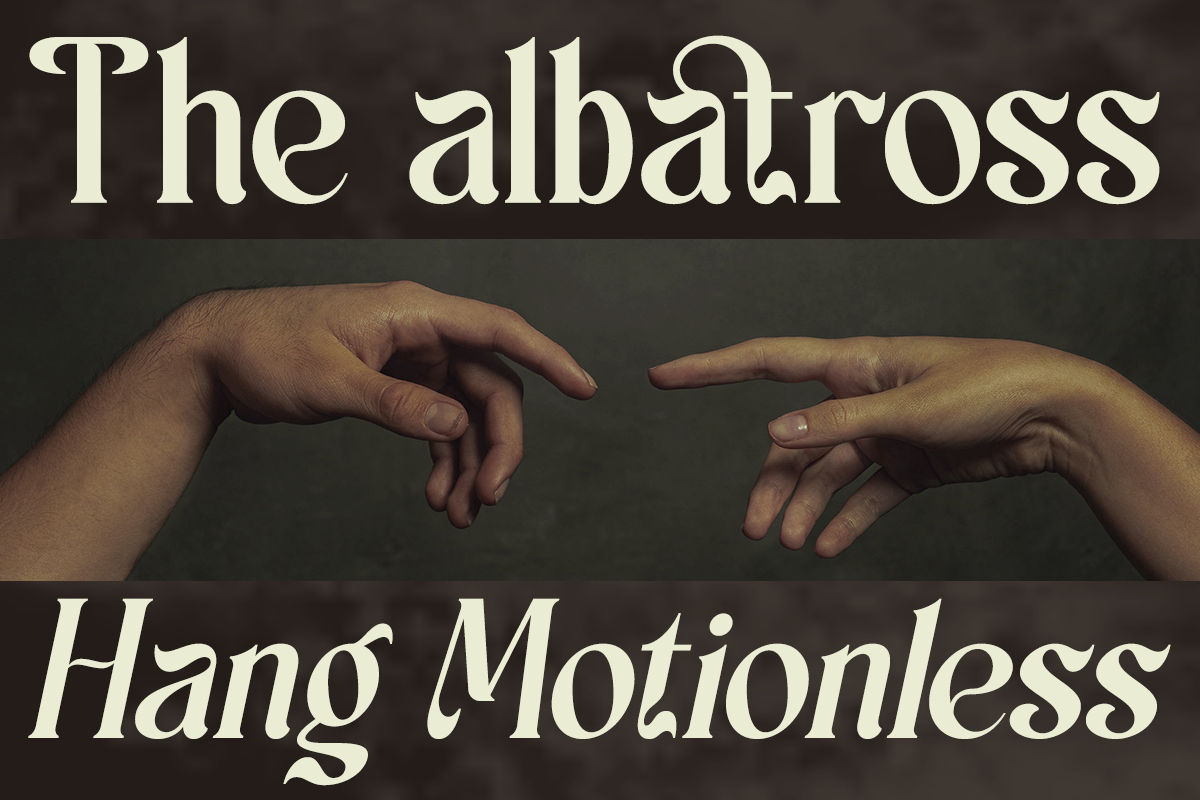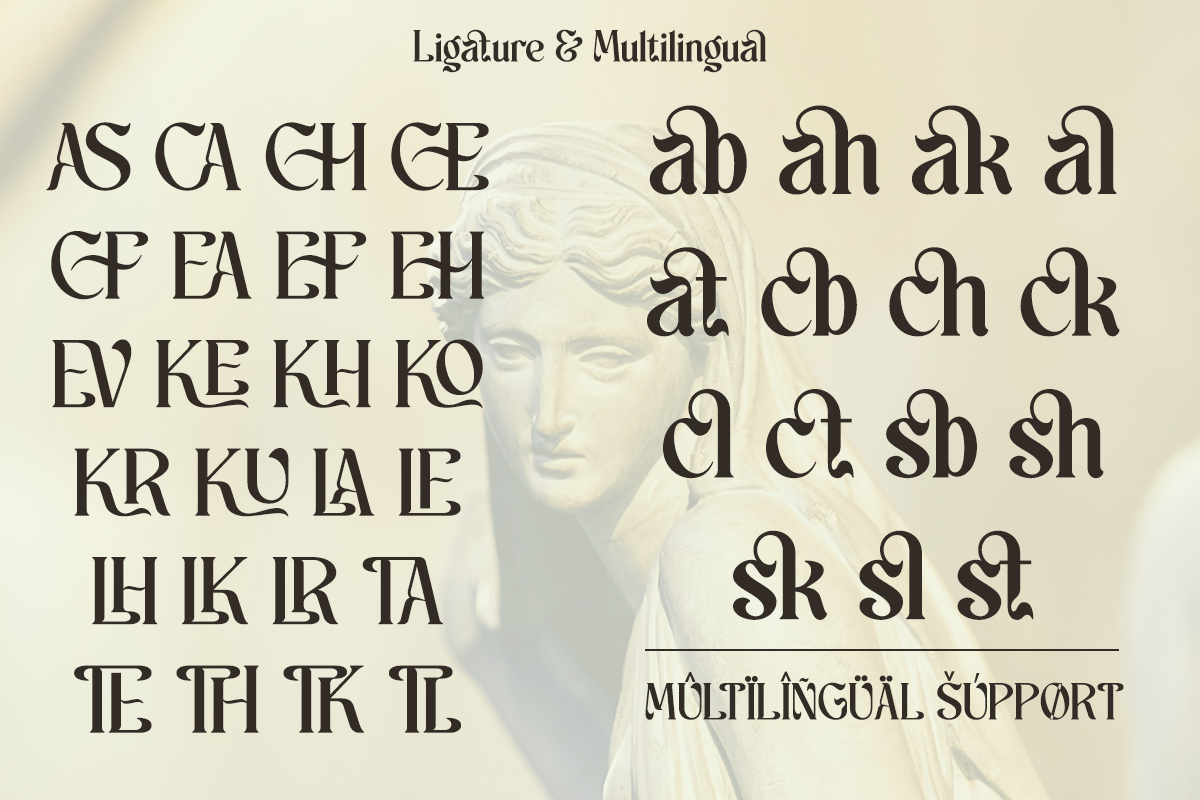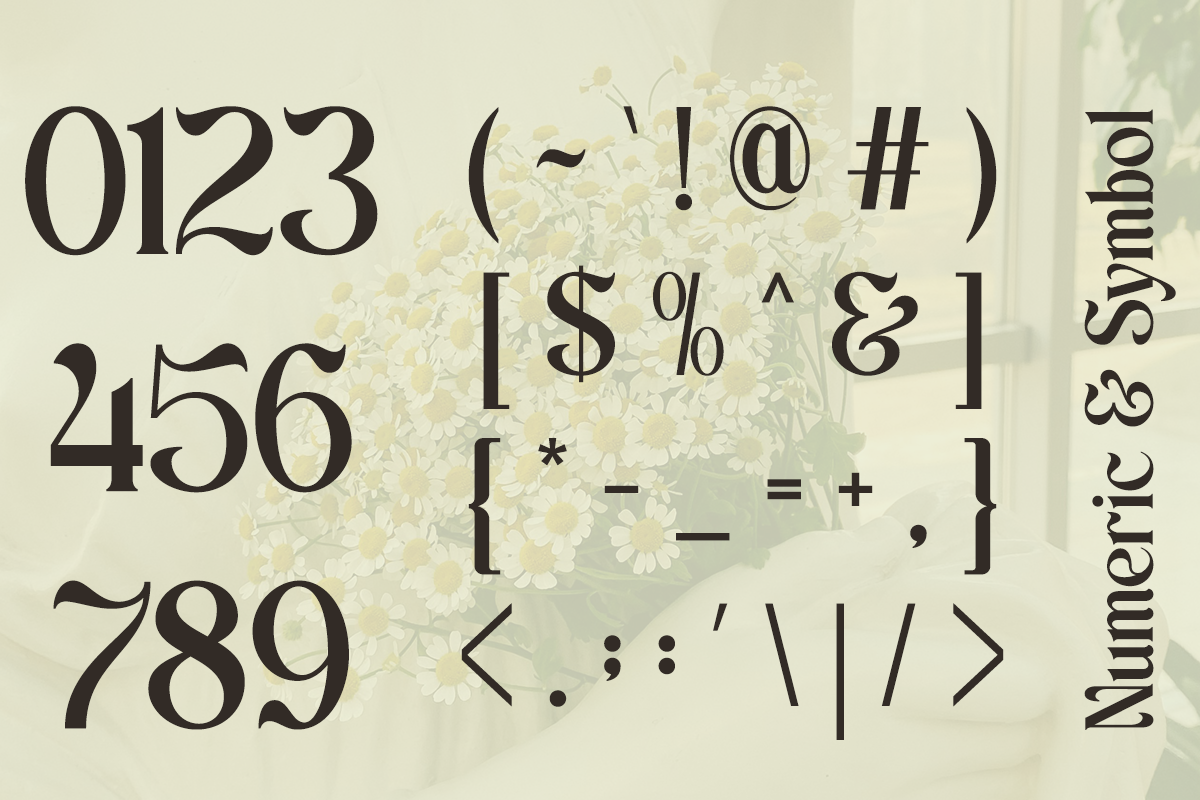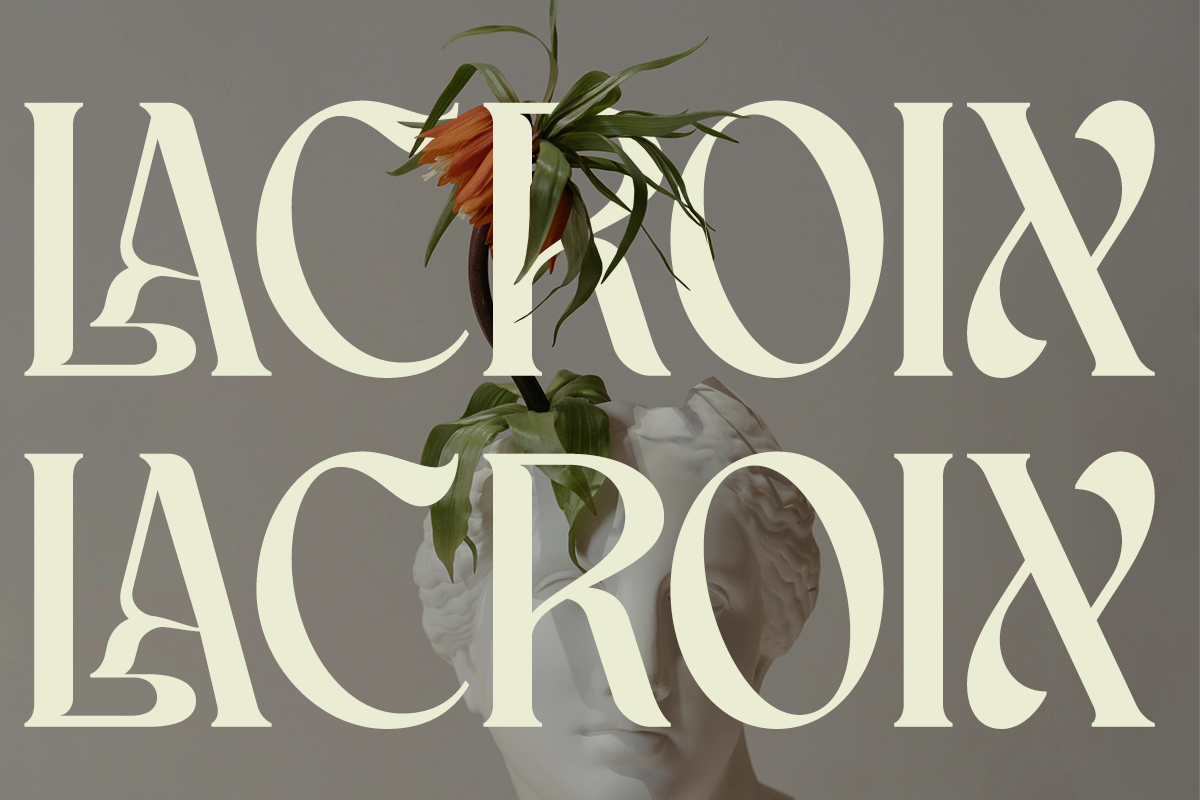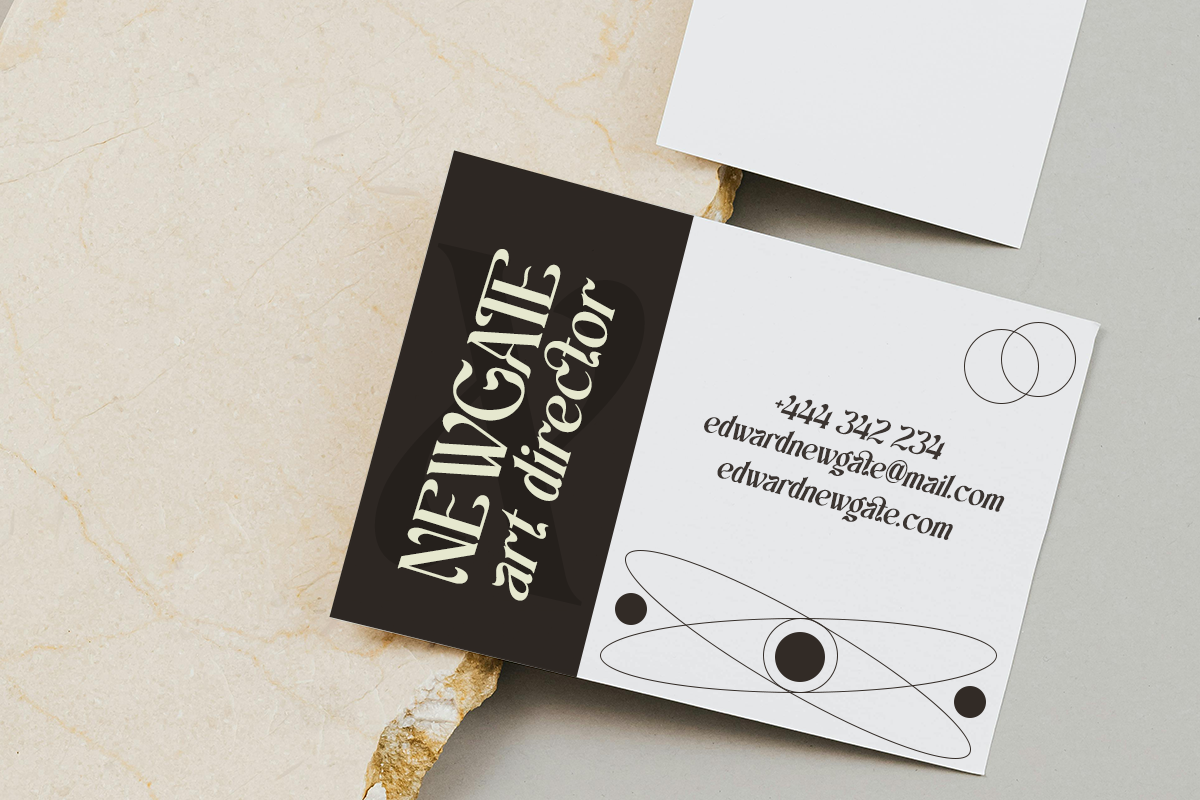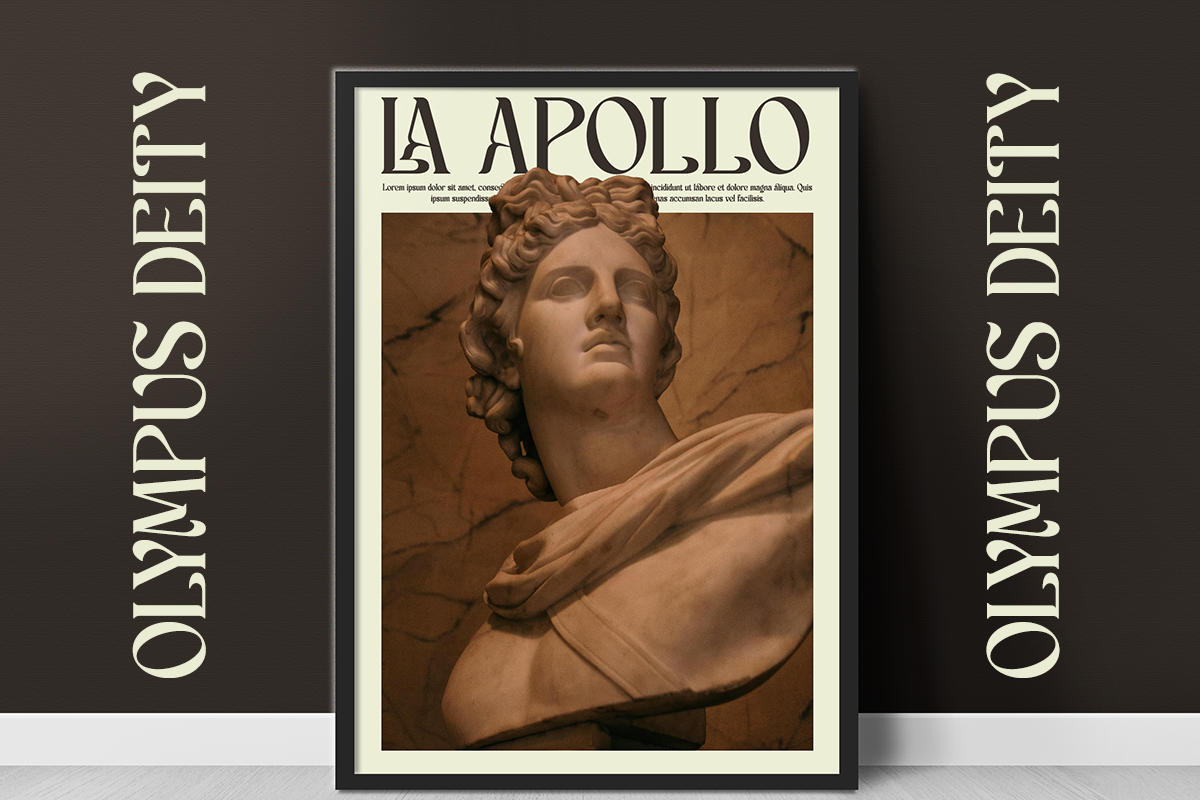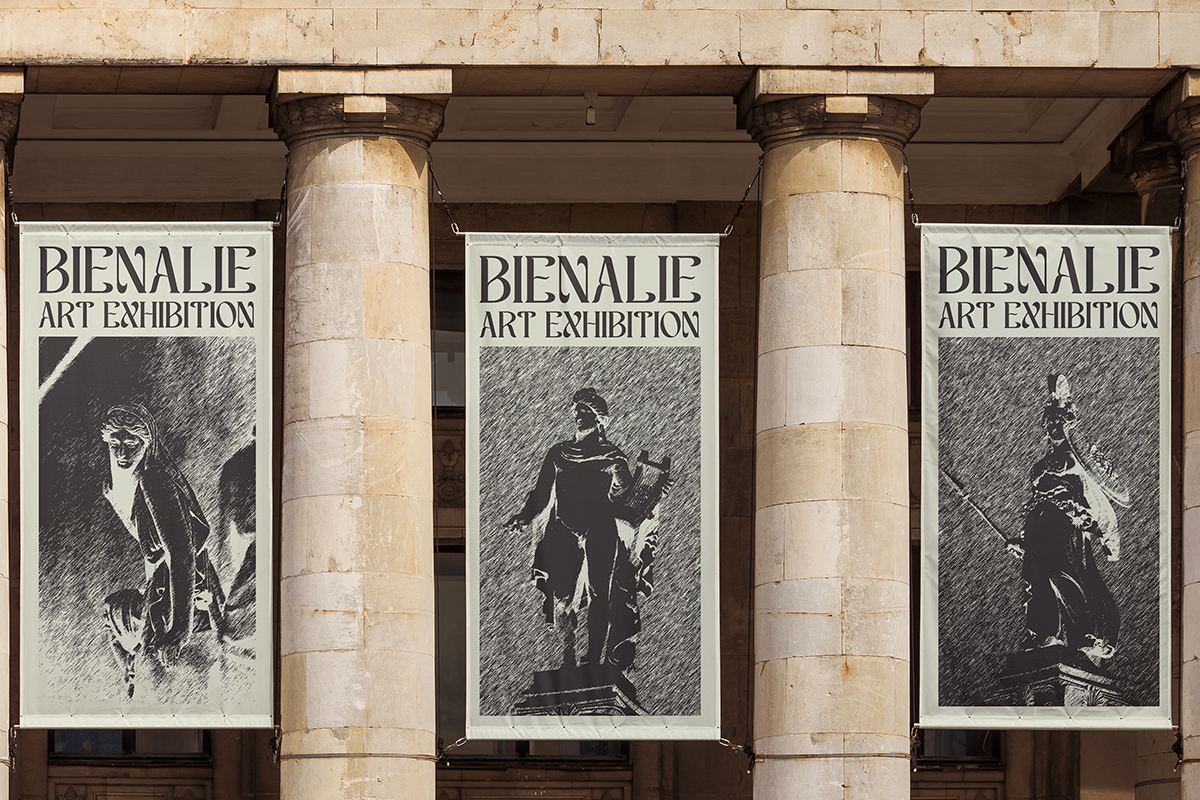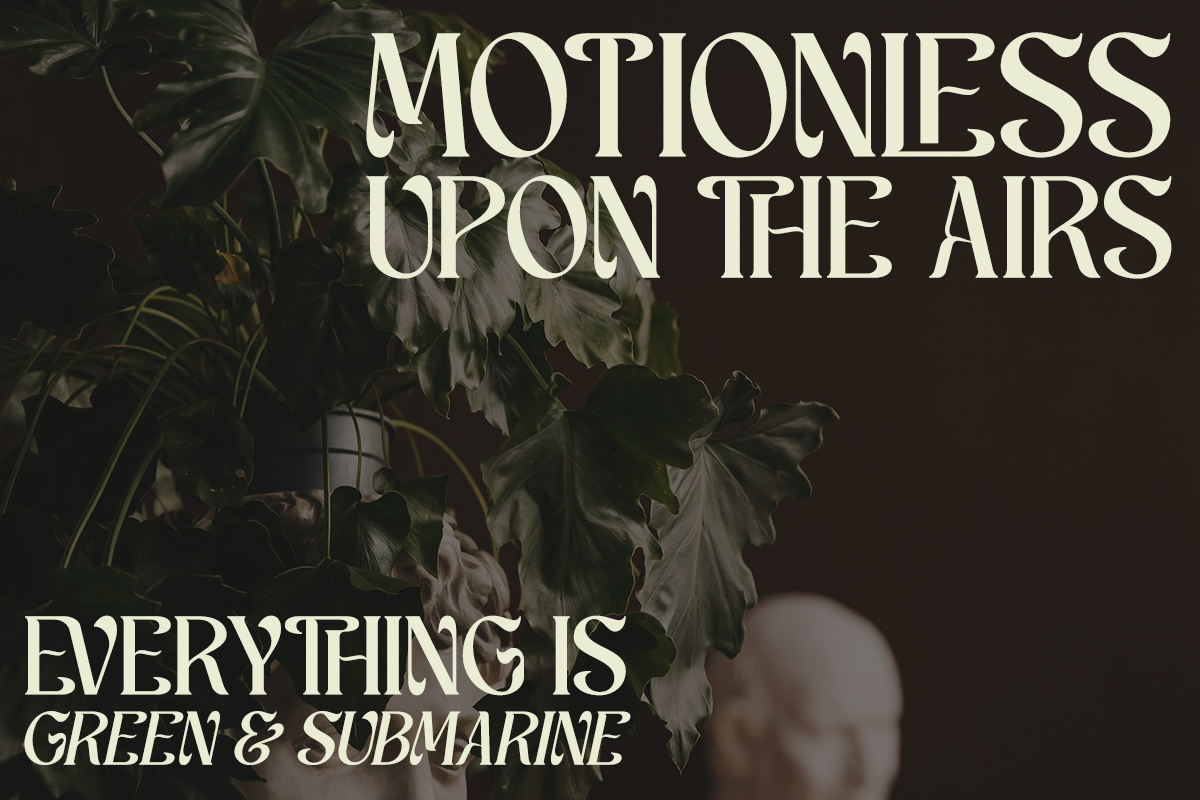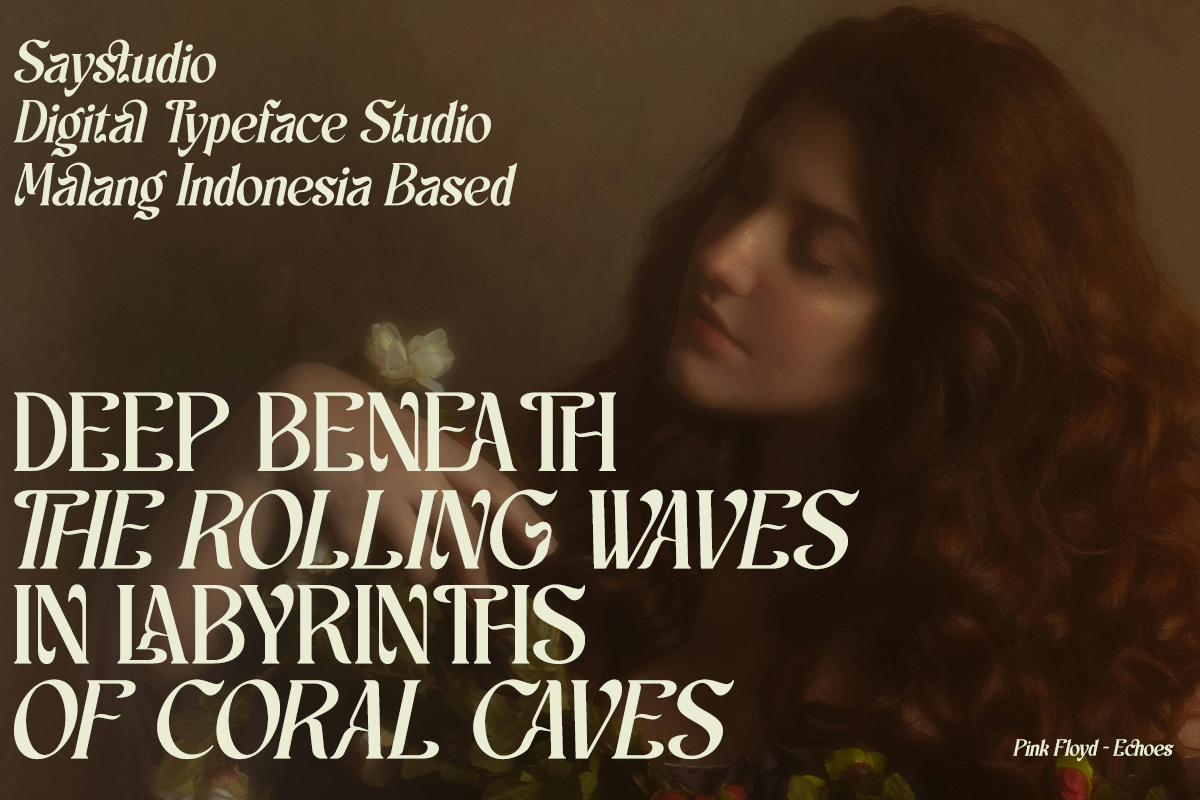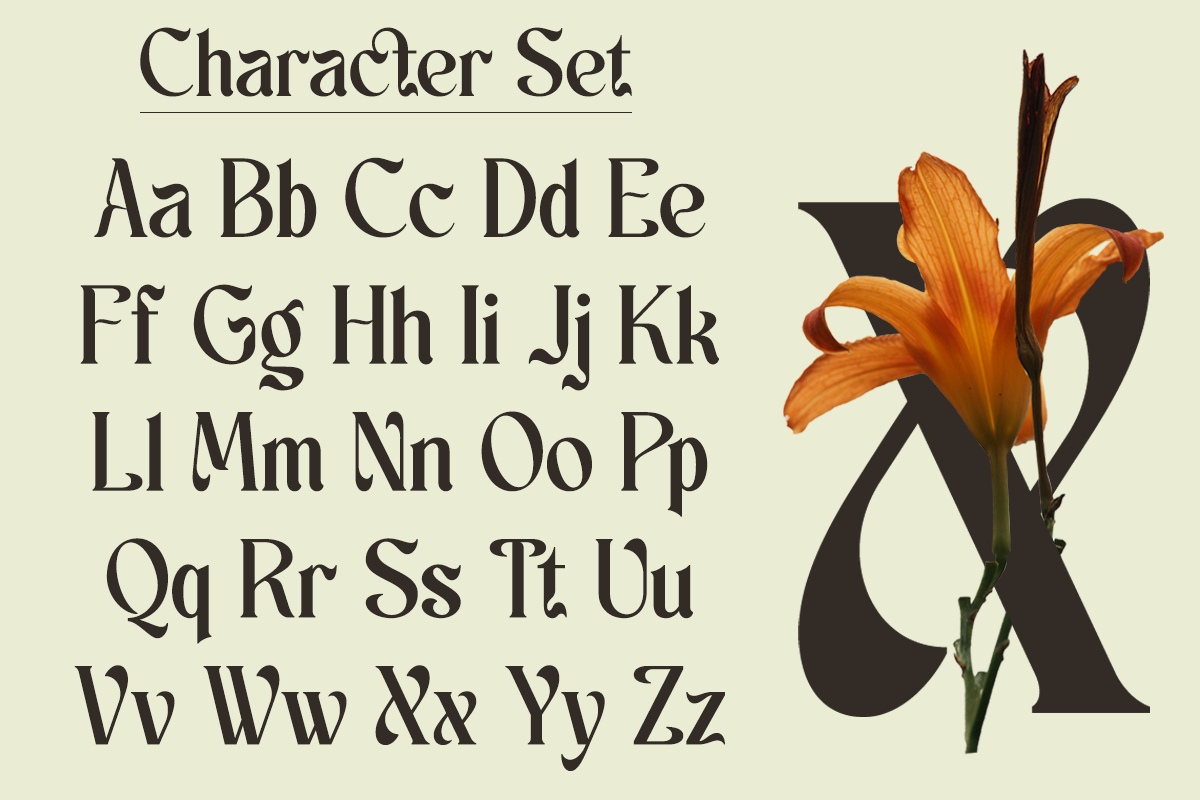
Scales - Aesthetic Ligatures Serif
Schales is an aesthetic and elegant modern ligature serif font. Its beautiful, flowing shapes offer a modern touch with of serif font, making it suitable for both contemporary and vintage designs. I It is perfect for headline, digital ads, magazines, website, poster, branding, and logos. With its elegant curves and unique variations, this font is perfectly suited for any creative project.
- Stylish Ligatures